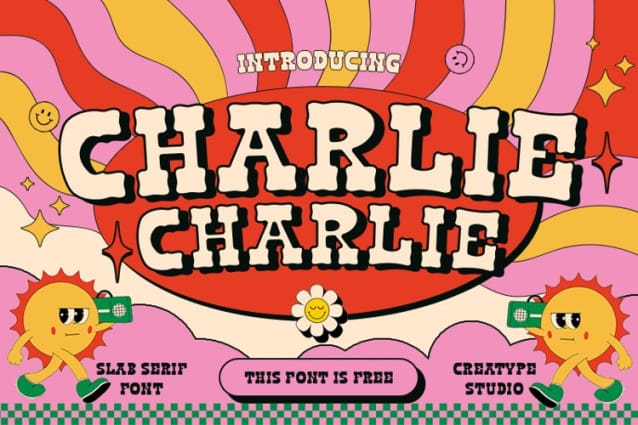
Charlie Slab Font
Charlie Slab Font is a hand lettered slab serif with rough and bold looks. Suitable to a wide variety of designs due to its friendly and cute style, this font has the potential to brighten up each of your creations. You can use this font for any purposes such as poster, quotes, tittle, and branding.